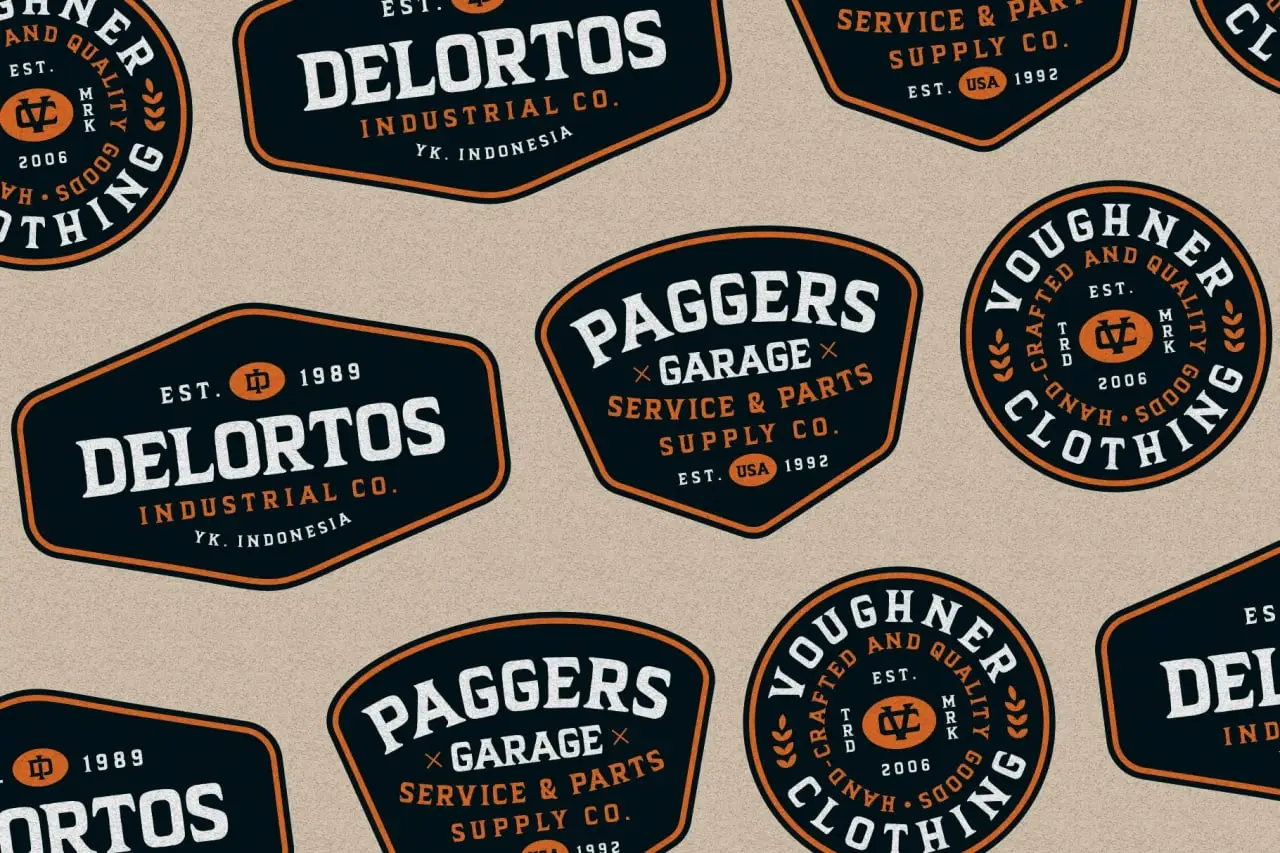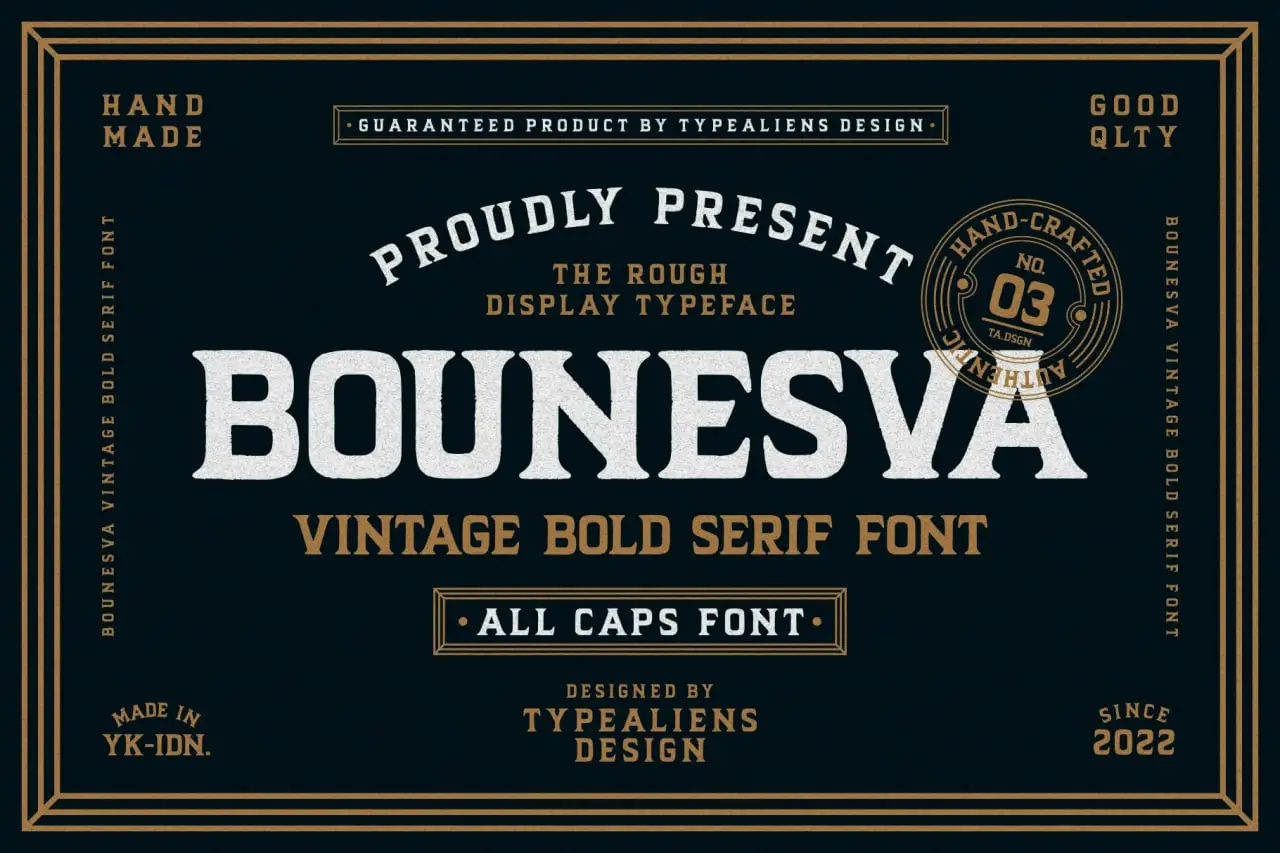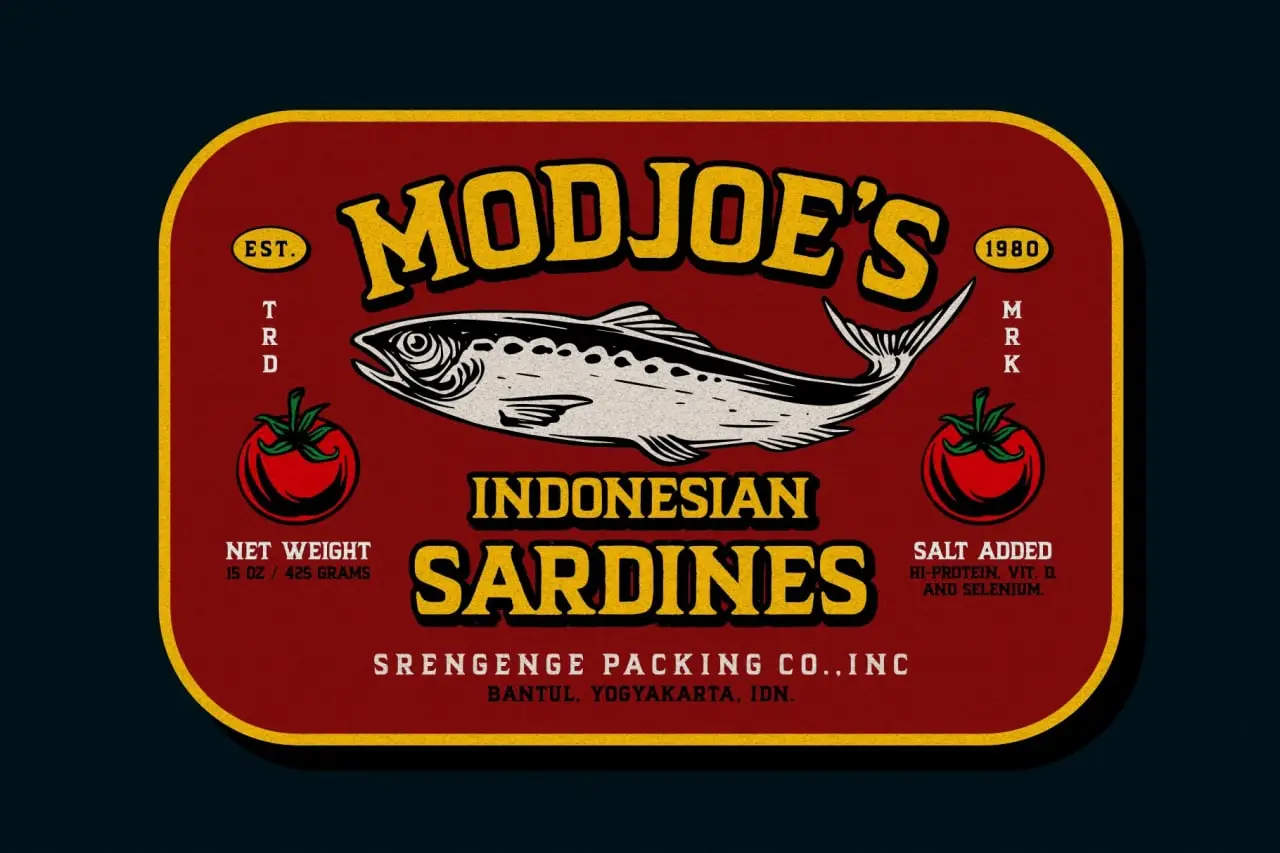
Bounesva Font By Typealiens
The Bounesva Font by Typealiens is a unique typeface that combines playful elements with modern design. This font features a variety of styles and weights, making it suitable for a wide range of projects.
• Style: Display